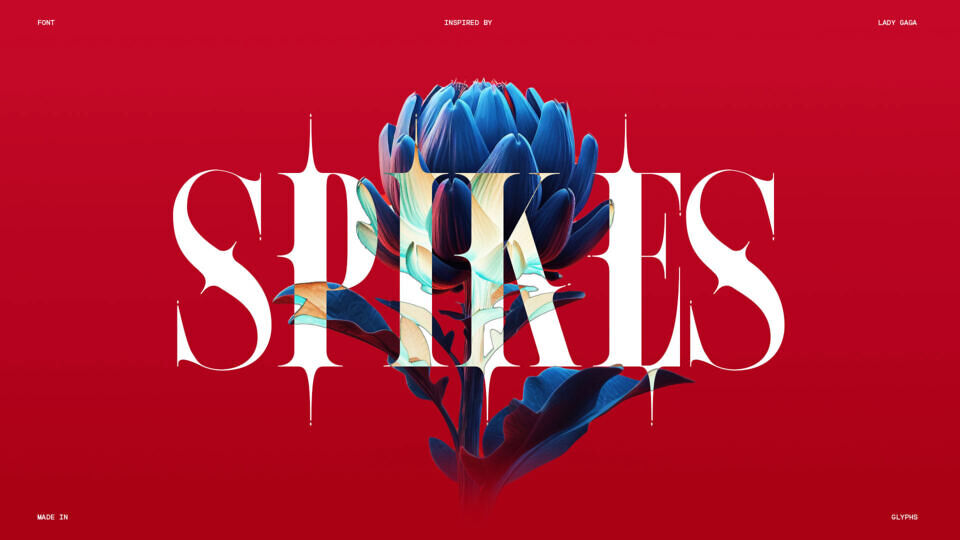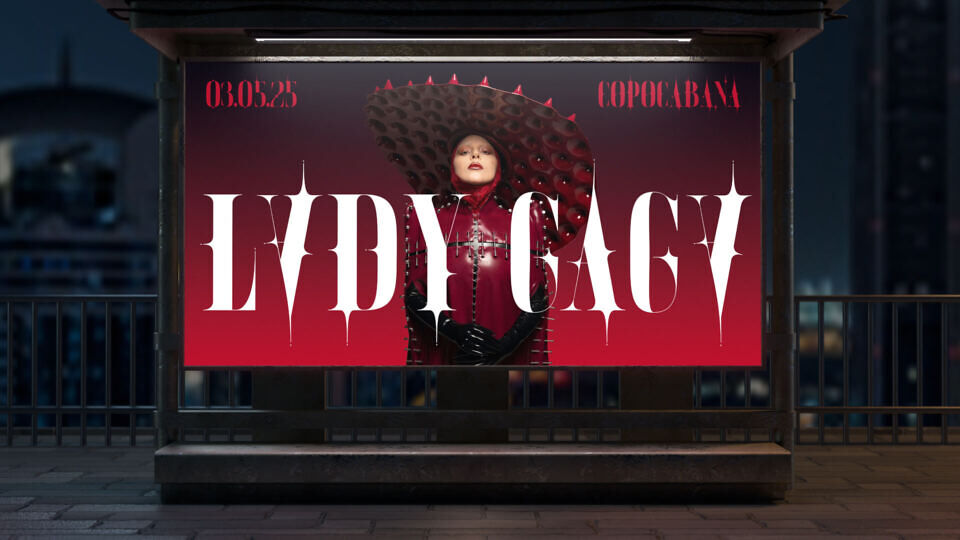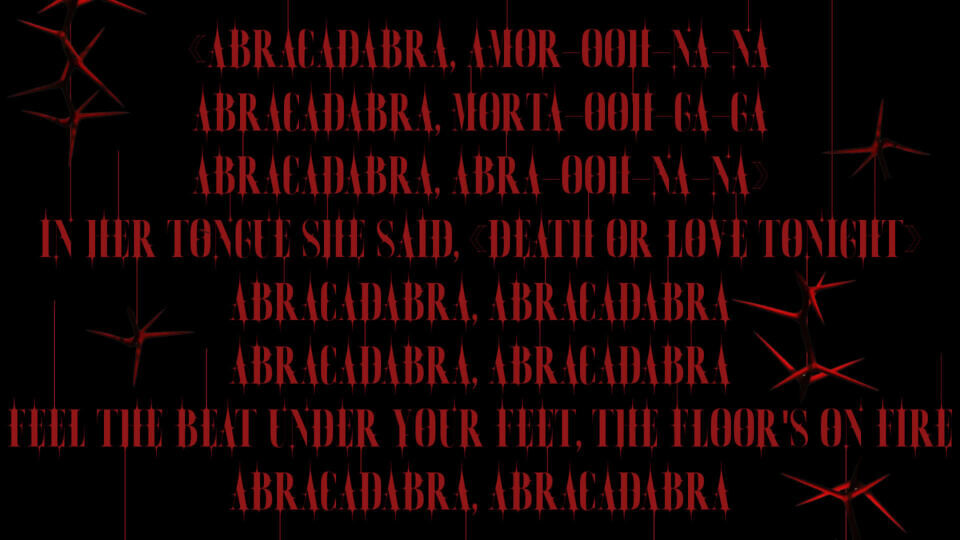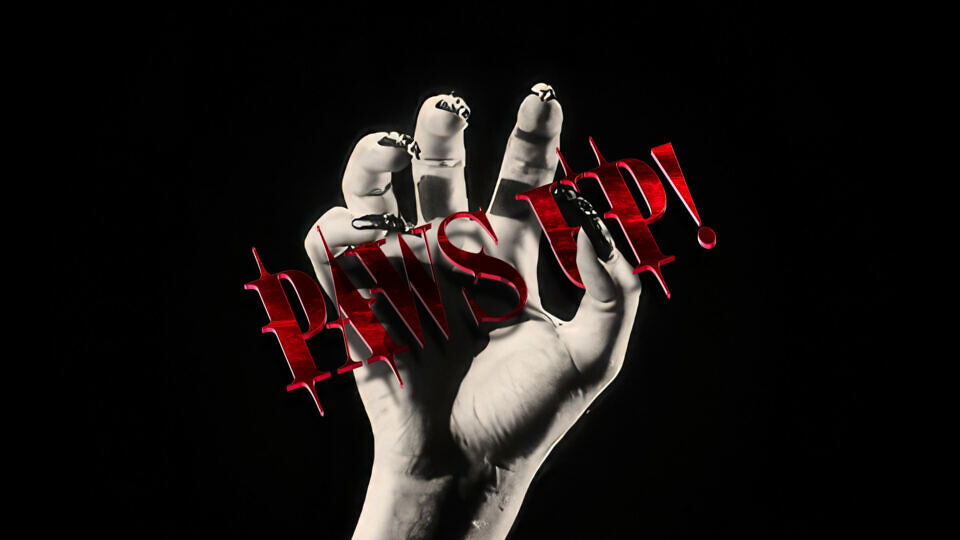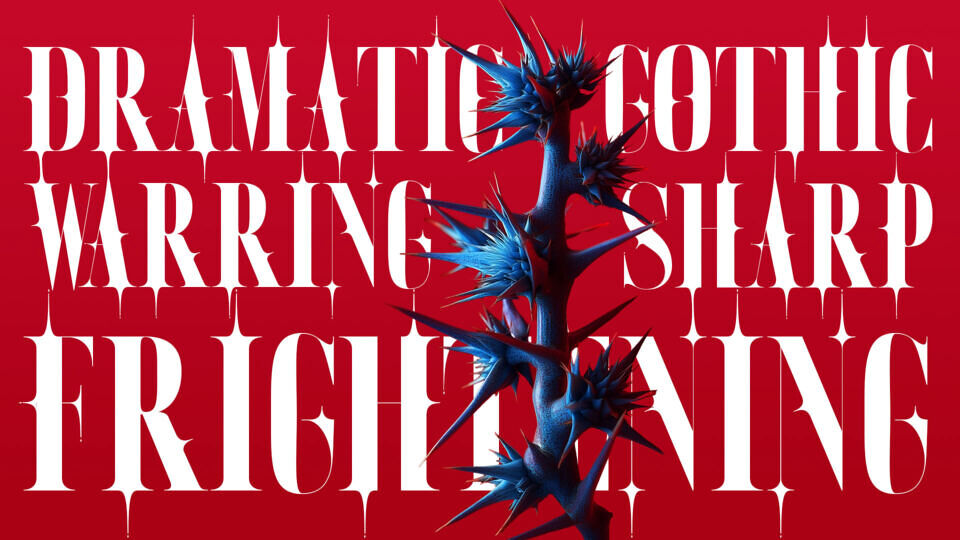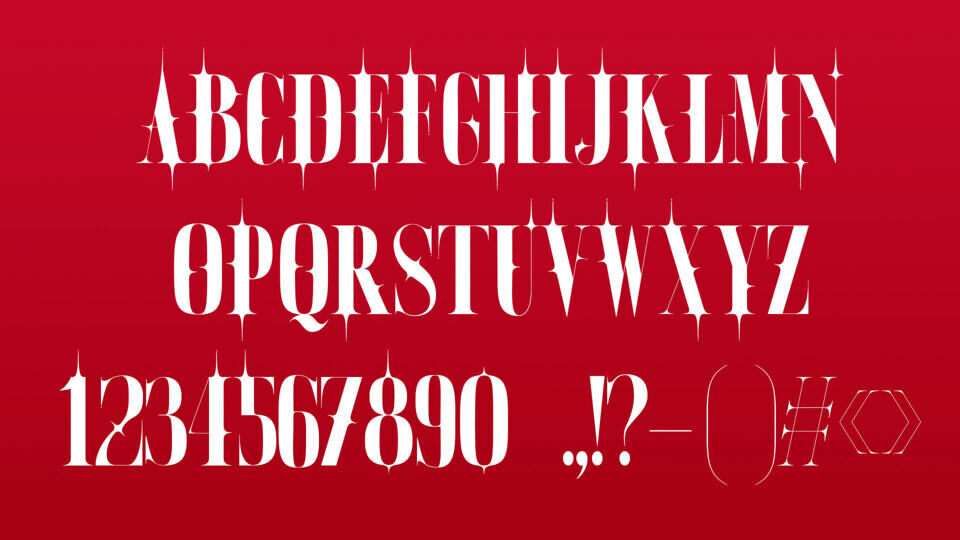
The SPIKES font draws inspiration from Lady Gaga’s bold style, particularly her Mayhem Ball Tour. This edgy serif font blends classic elements with unconventional serif placement, mirroring the singer’s unique blend of music and aesthetics.